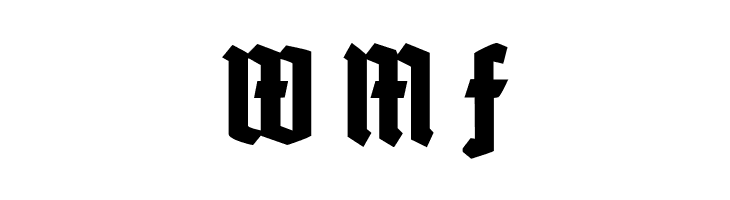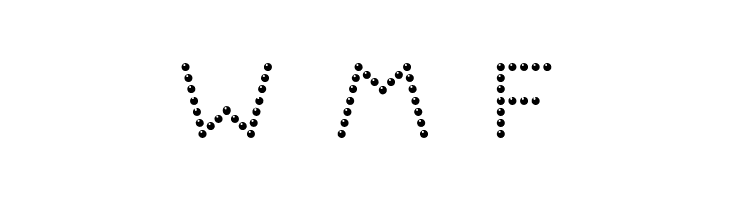
An eclectic dingbat font of abstract, geometric, and pictorial symbols.
A bold blackletter font with sharp, angular lines and a gothic aesthetic.
A bold, playful font with a hand-drawn, irregular style.
A geometric, abstract font with bold shapes and high contrast.
A geometric, abstract font with bold, angular shapes and a futuristic style.
A geometric, abstract font with angular, fragmented characters enclosed in squares.
A modern, abstract font with characters formed by negative space within rounded squares.
A geometric and abstract font with boxy, angular characters.
A whimsical and decorative font featuring cartoonish, creature-like characters.
Ornate, fantasy-themed font with gargoyle illustrations for each character.
A dot matrix style font with a retro digital display aesthetic.
Graphic, illustrative font with each character as a distinct artwork.
A modern serif font with playful, refined character shapes and sharp serifs.
A bold, dynamic script font with flowing strokes and a modern flair.
A playful, cartoon-style font with bold, expressive symbols and icons.
A playful, dotted font perfect for creative and modern designs.
A playful, hand-drawn font with bold outlines and textured patterns.
A bold, decorative font with a playful dotted pattern.
A vintage, monospaced typewriter-style font with textured, irregular strokes.
A vintage, hand-drawn font with bold outlines and a playful aesthetic.
A playful, handwritten font with a whimsical and casual style.